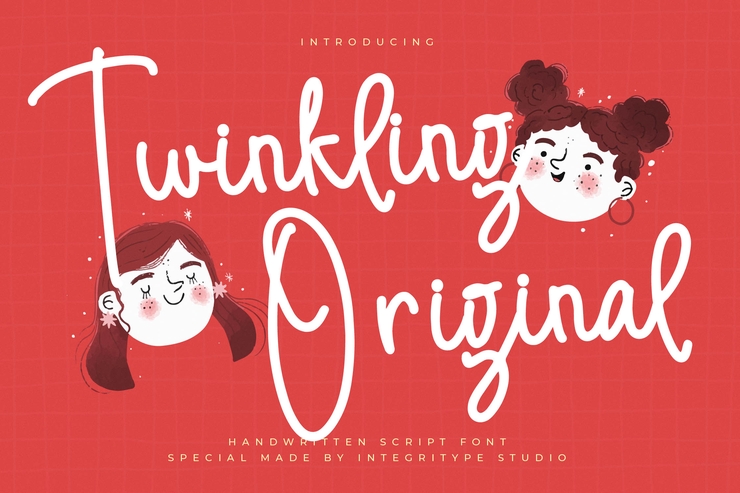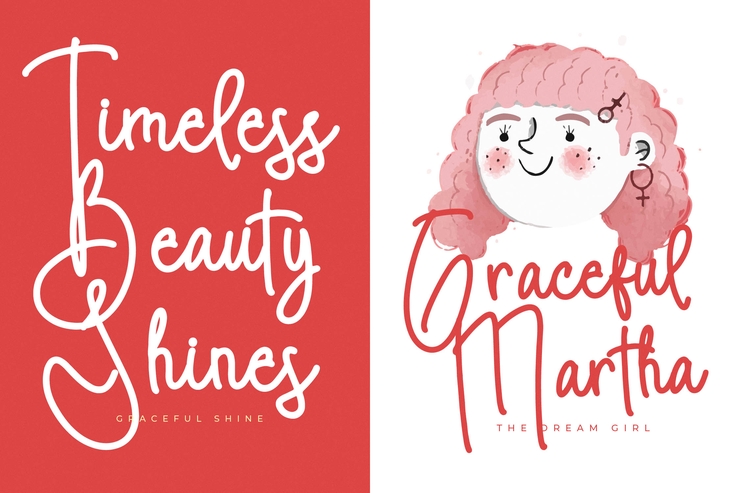
Twinkling Original Stylish Trendy Tech Elegant English Font
Twinkling Original is a premium English typeface with stylish trend and futuristic tech aesthetic. It features elegant letterforms, smooth sleek lines and delicate structural details, bringing a twinkling modern sense and high-end visual texture. The font maintains graceful proportion in each character, balancing fashion trendiness, technological sense and minimalist elegance perfectly. Complete with uppercase and lowercase letters, it fits a wide range of creative design scenarios, including brand logo, fashion poster, tech banner, e-commerce headline, cosmetic packaging, UI interface and PPT decorative text. All glyphs are well-structured, easy to adjust size, color and layout without losing clarity. Ideal for designers, studio creators and commercial brand projects to add unique trendy charm to every work.Free for Commercial Use / No Copyright